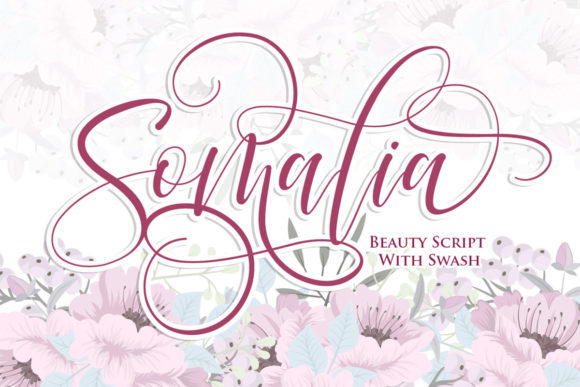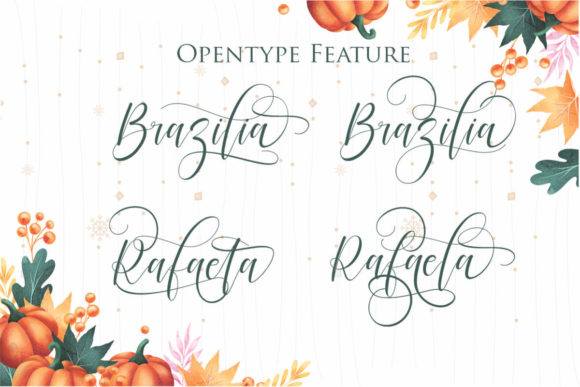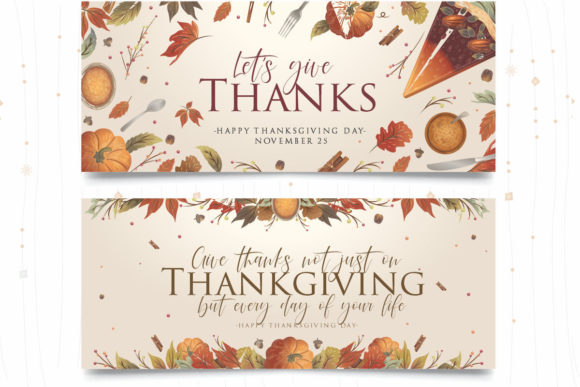
About Somalia Font
Somalia is a superb handwritten font that brings a touch of elegance and sophistication to your fonts’ library. With its versatile style, this font has the potential to elevate any creation, regardless of the topic or design context.
The elegance of Somalia font makes a statement in your typographic compositions. Its well-crafted letterforms and smooth curves create a visually pleasing and refined aesthetic. Whether you’re working on branding, invitations, editorial designs, or any other project, Somalia font enhances the overall visual appeal with its superb and sophisticated demeanor.
Somalia’s versatility allows it to adapt to various design applications. Its handwritten style adds a personal and authentic touch to your designs, making them stand out and resonate with your audience. This font brings a sense of professionalism and creativity, making it suitable for a wide range of themes and purposes.
One of the highlights of Somalia font is its PUA encoding, which allows easy access to all of the glyphs and swashes. This feature opens up a world of possibilities, allowing you to explore and experiment with different variations and styles within your designs.
Incorporating Somalia into your fonts’ library empowers you to create stunning and elevated designs. Its superb and versatile handwritten font adds a touch of elegance and sophistication, enhancing the visual appeal and impact of your creations.
In summary, Somalia is a superb handwritten font that offers versatility and elegance to your designs. Its well-crafted letterforms and refined aesthetic make it a valuable asset in your fonts’ library. Embrace the potential of Somalia font and let it elevate your creations with its sophisticated and versatile presence.